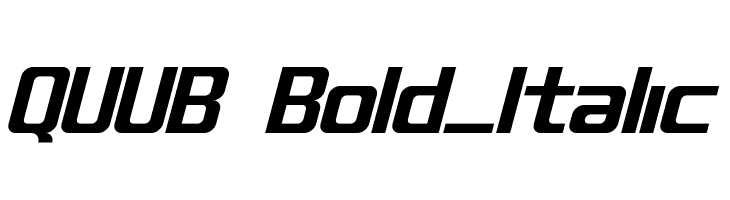
A bold, italicized font with a modern, geometric style and rounded edges.
A modern, geometric font with clean lines and a structured appearance.
A modern, italic font with geometric precision and a dynamic slant.
A modern, italicized font with a futuristic and streamlined design.
A modern, geometric font with rounded edges and consistent stroke width.
A modern, geometric font with a square-like structure and consistent design.
A modern, italicized font with a sleek and futuristic design.
A modern, italicized font with rounded edges and consistent line thickness.